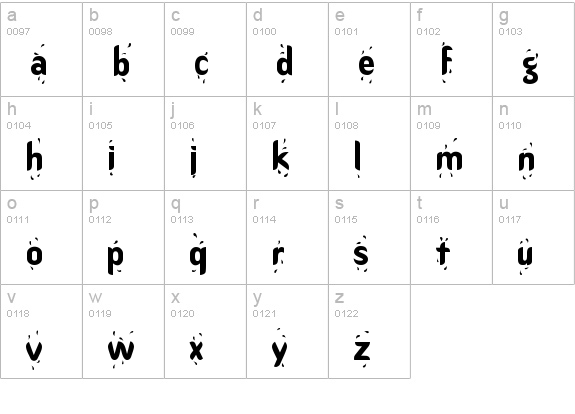
RainDanceSSK is a captivating and whimsical font that will transport you to a world of rain showers and dancing melodies. With its playful and fluid design, this font will add a touch of charm to any project. The curvaceous letterforms are reminiscent of raindrops gently falling from the sky, creating a sense of movement and grace. This font is not only visually appealing, but it also comes with the added advantage of being free. Yes, you heard that right - RainDanceSSK is freely available to download at FontsMarket.com. Now you can bring a sprinkle of magic to your designs without having to spend a dime. Whether you're designing invitations for a whimsical wedding, creating a fun and playful logo, or adding a touch of elegance to your personal blog, RainDanceSSK is the perfect choice. Its versatility and unique aesthetic make it suitable for a wide range of creative projects. So why wait? Visit FontsMarket.com today and get your hands on the enchanting RainDanceSSK font. Let it rain creativity and add a delightful touch to your designs. Download it for free and let your imagination dance in the rain!